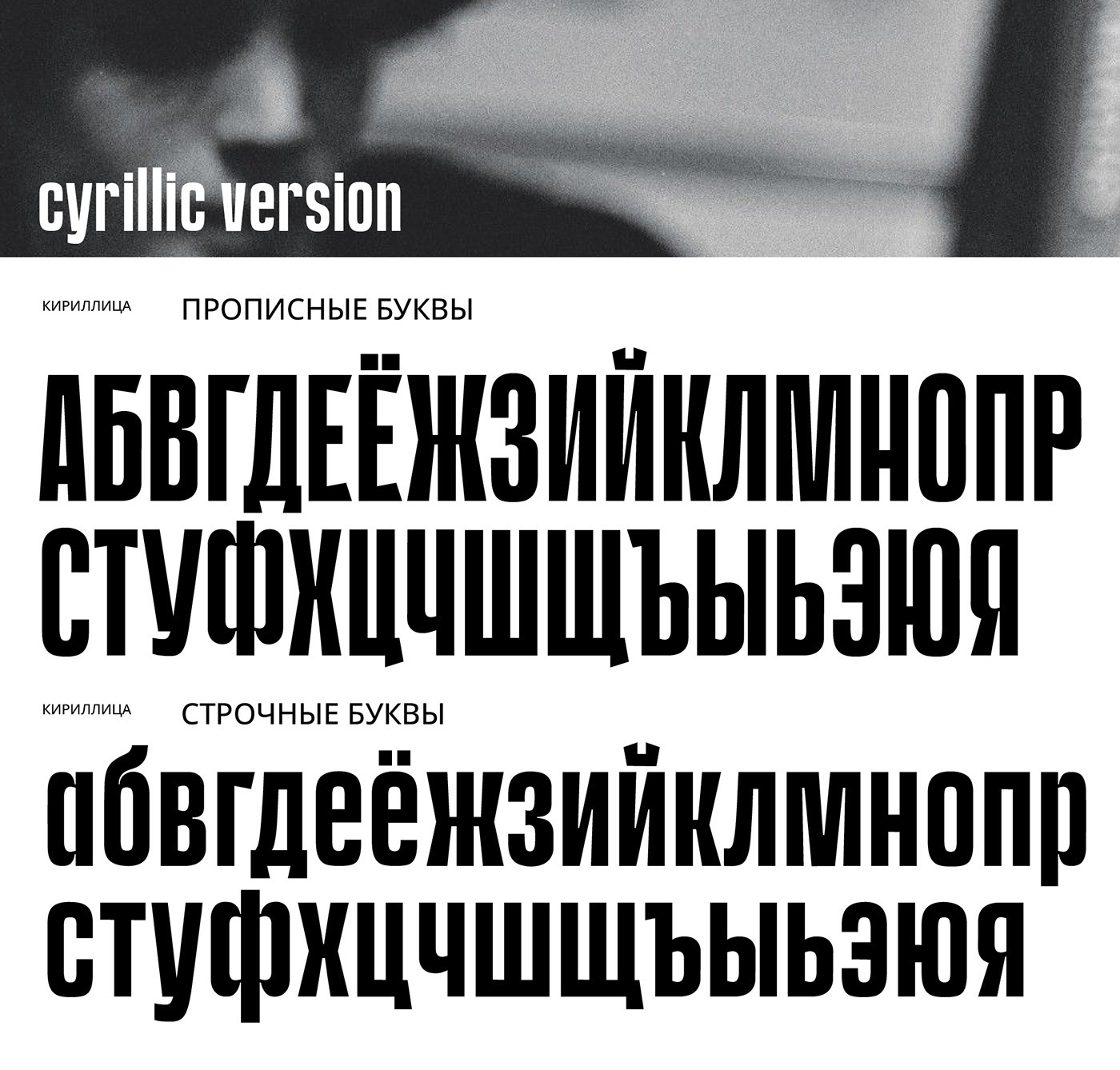
Damn - Free Sans Serif Font
Download Damn, a contemporary geometric sans serif font from Darya Fisko. The bold design of this typeface makes it great for advertising, package design, and poster design.